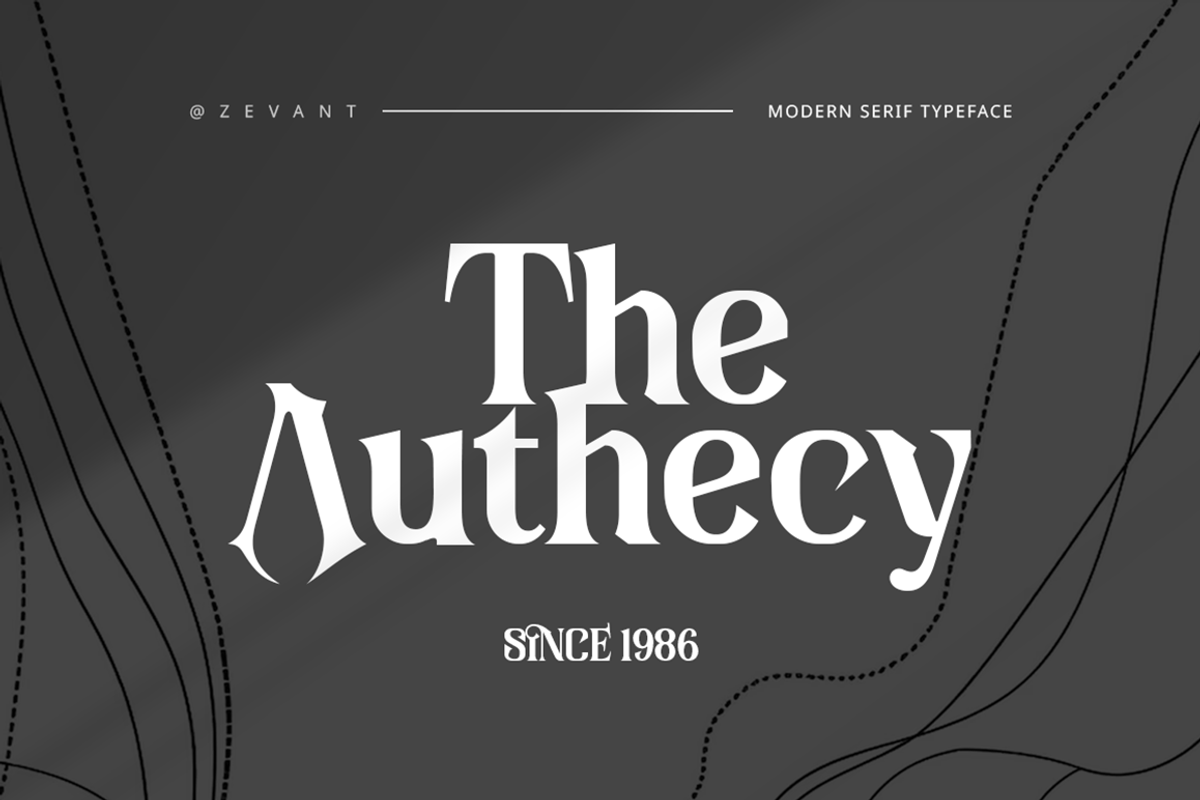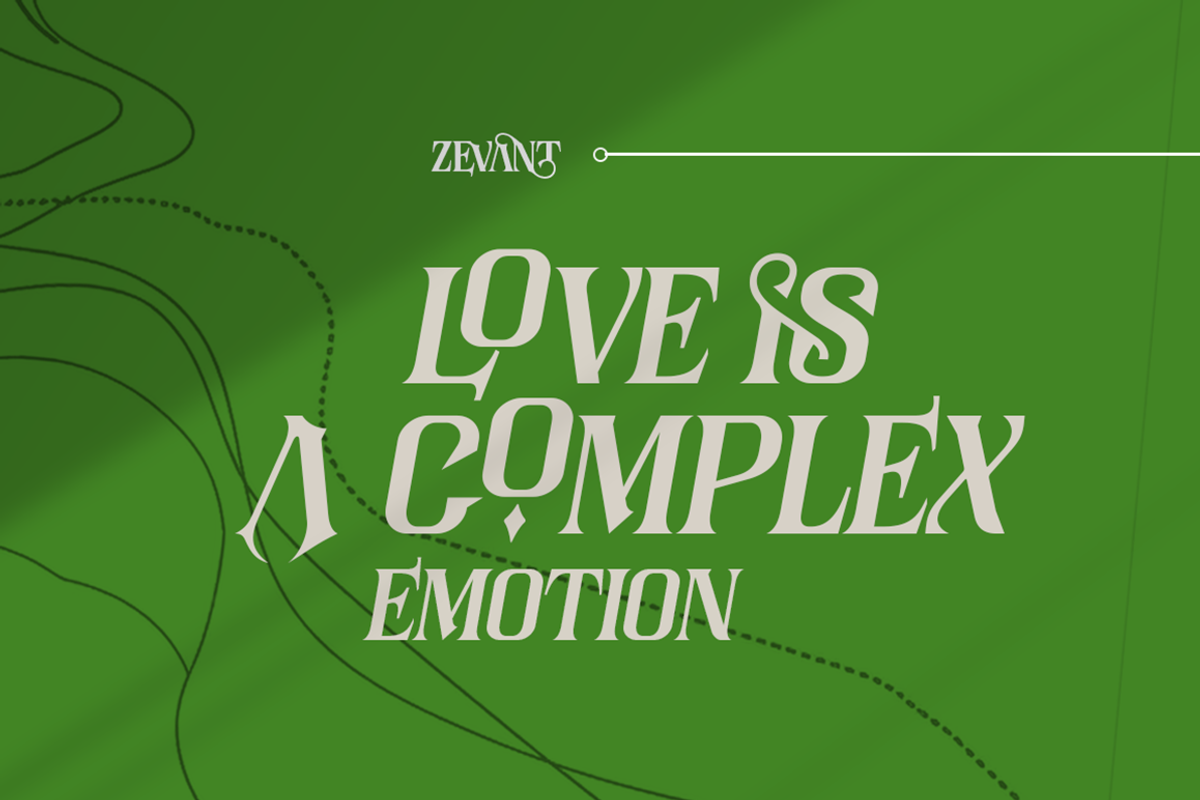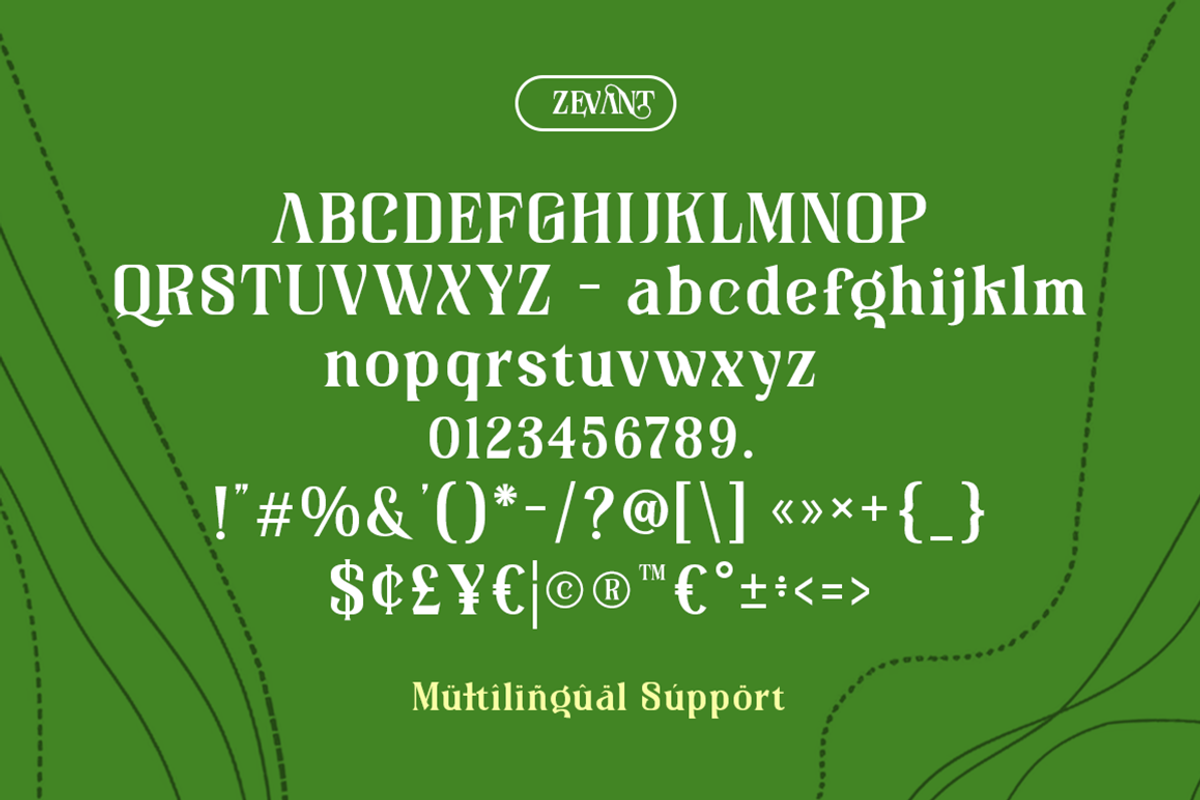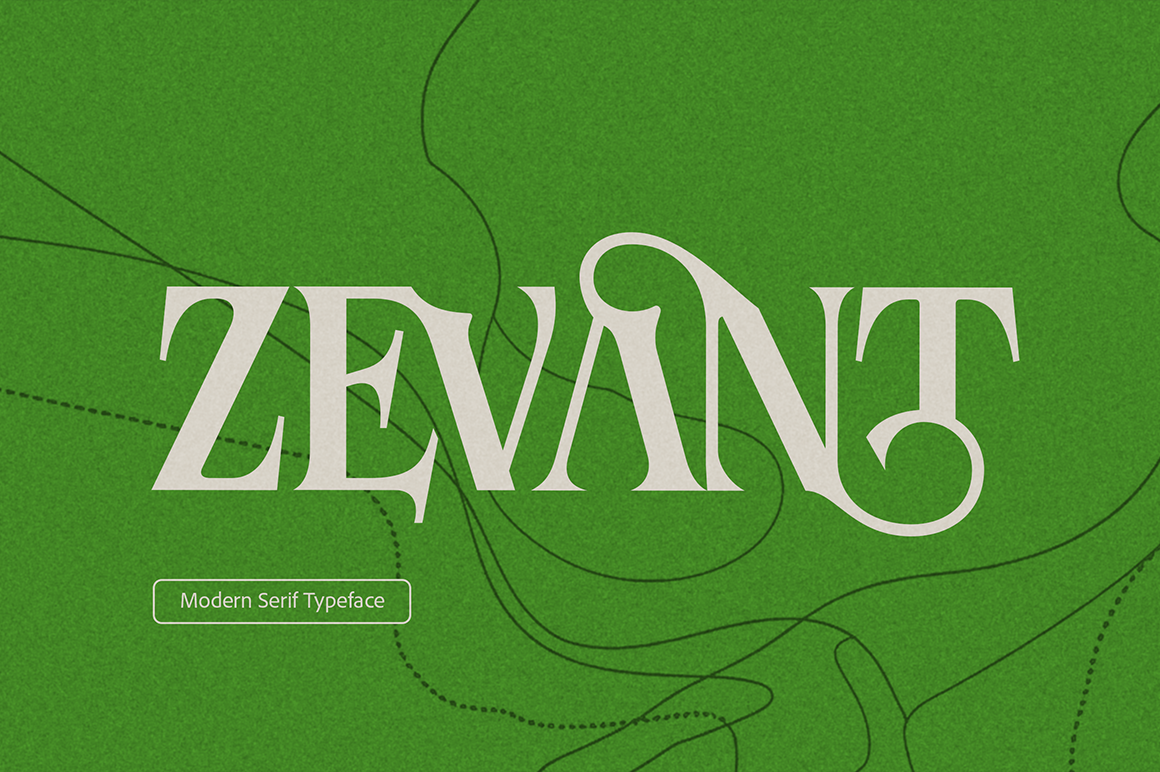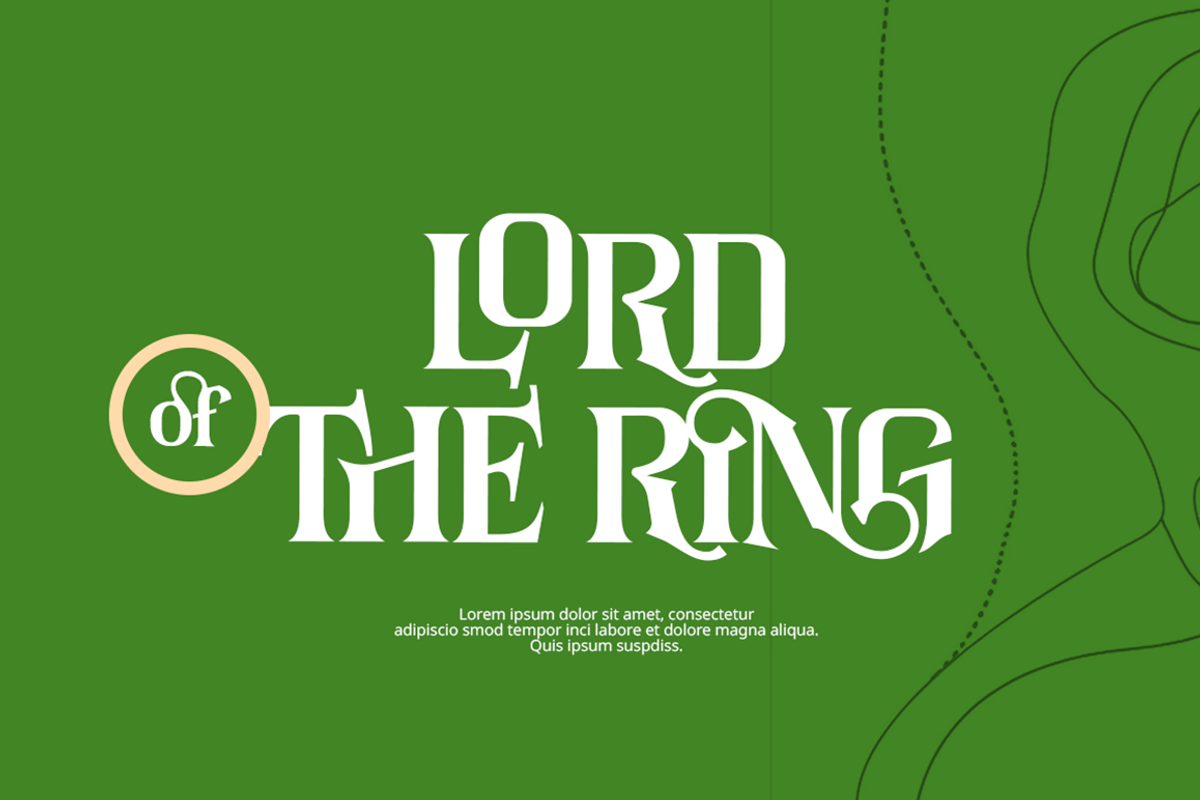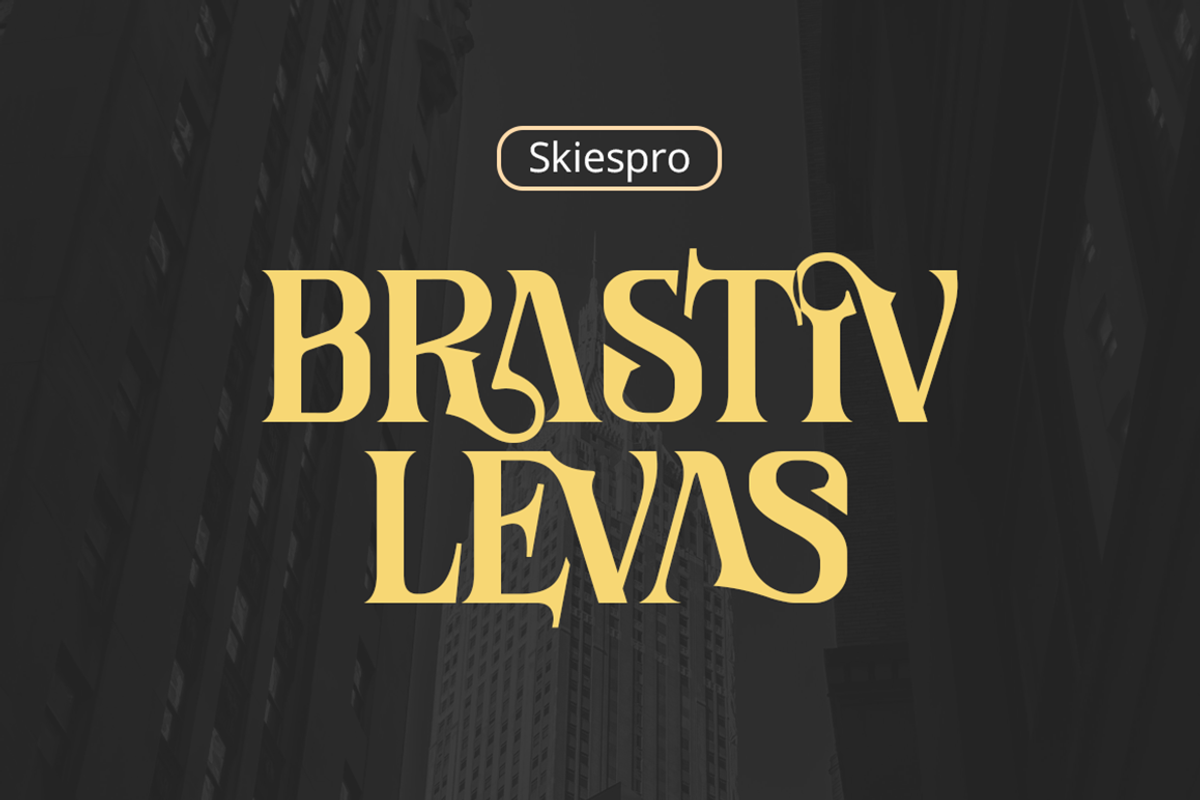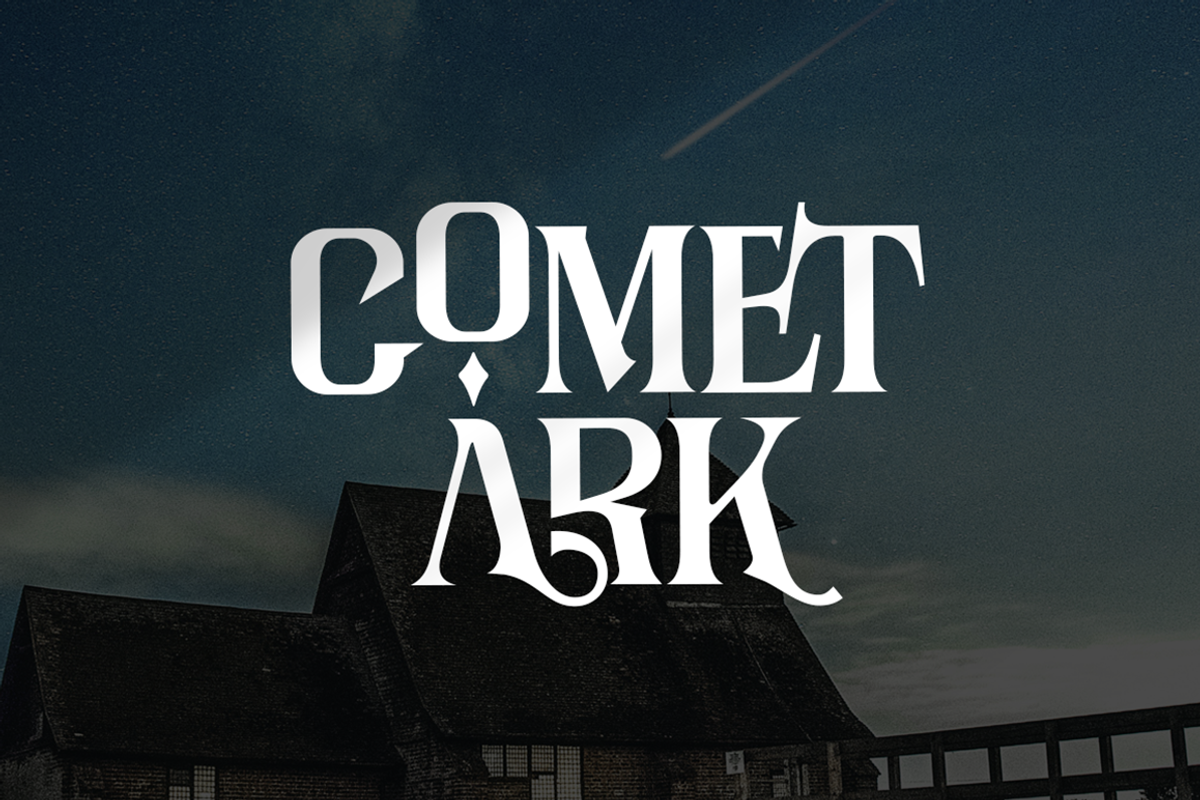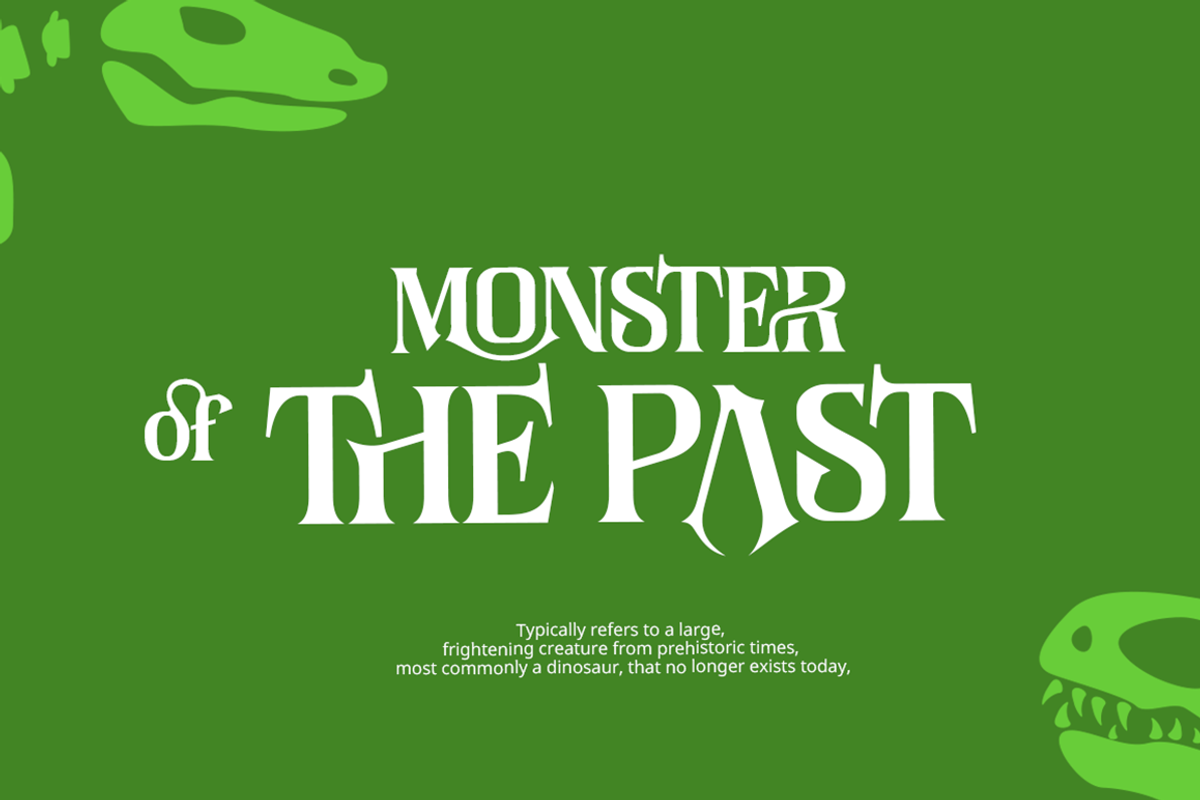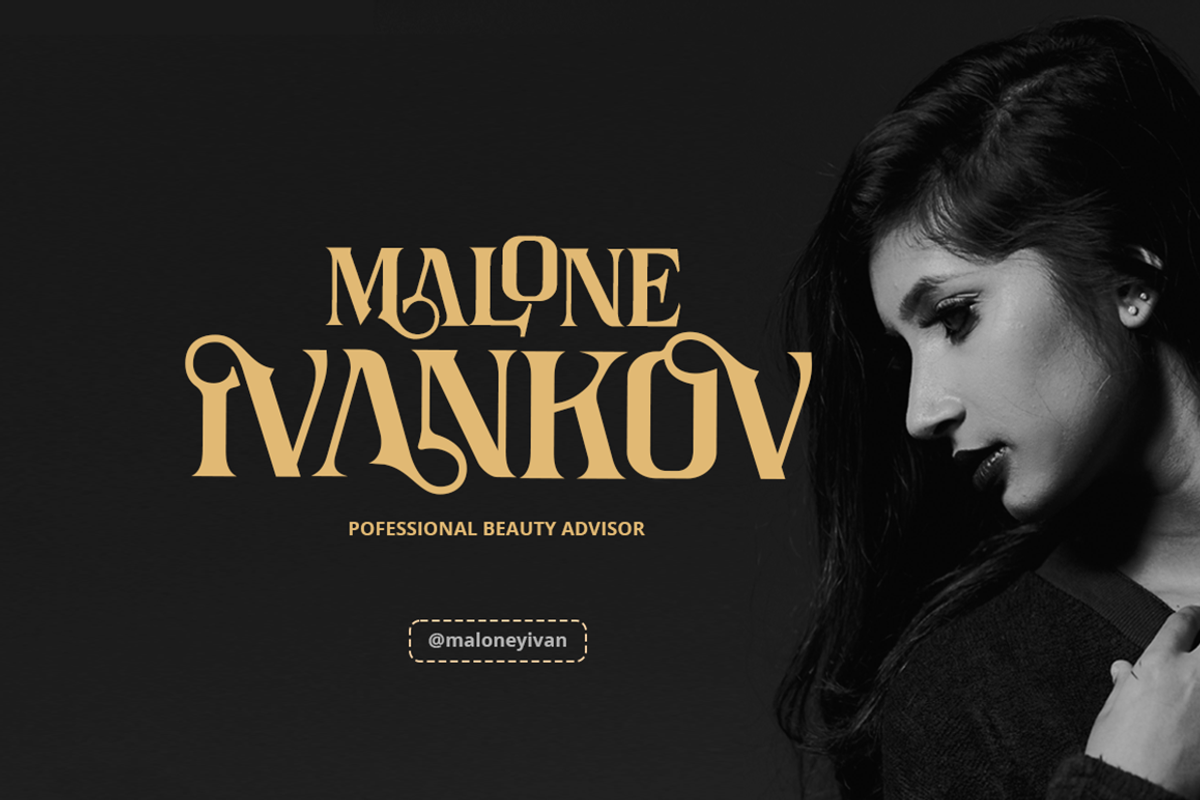
Zevant - Serif Font
Zevant is a unique and creative serif font designed to bring elegance and sophistication to your designs. With its distinctive decorative ligature pairs, this font adds a touch of artistry and refinement to any project. The semi-modern aesthetic blends classic serif elements with contemporary styling, making Zevant perfect for branding, editorial design, invitations, packaging, and more. Whether you're aiming for a luxurious feel or a stylish statement, Zevant delivers a bold yet graceful typographic experience.
- Elegant Serif Font
- Basic Latin Glyphs
- Unique Characters
- Awesome ligature Pairs
- Currencies